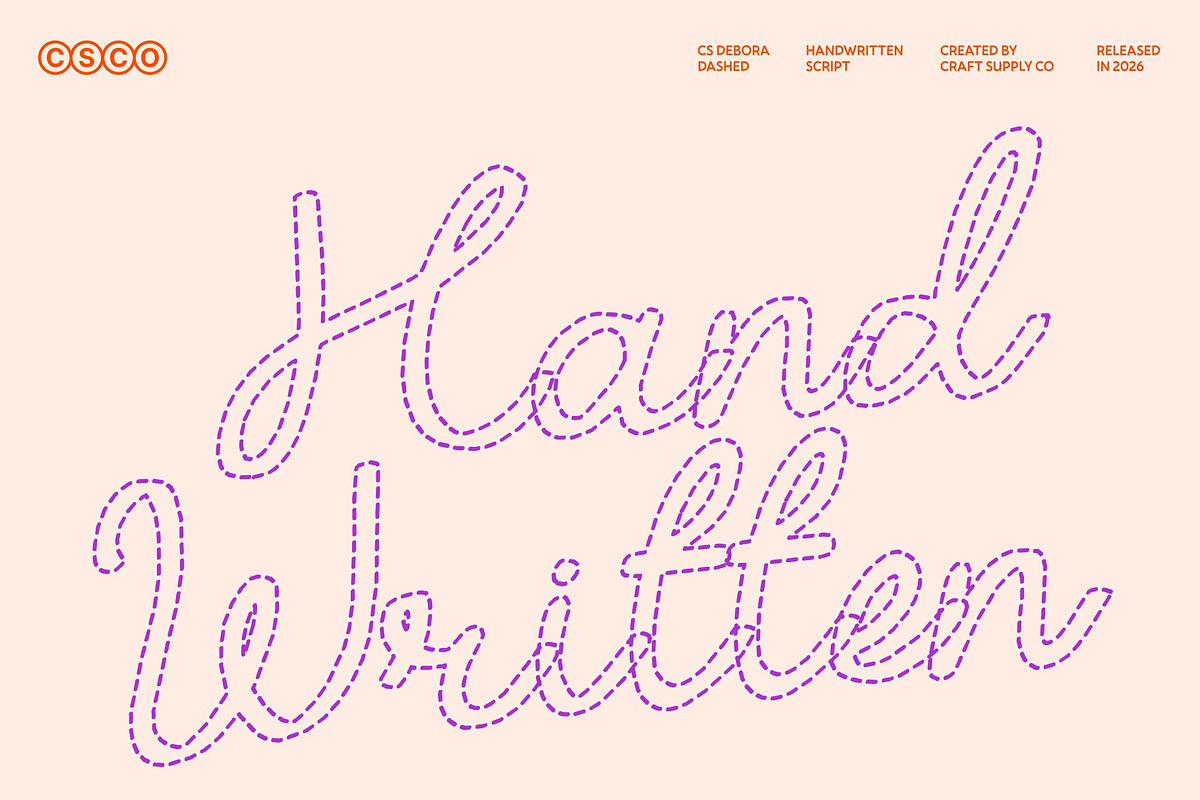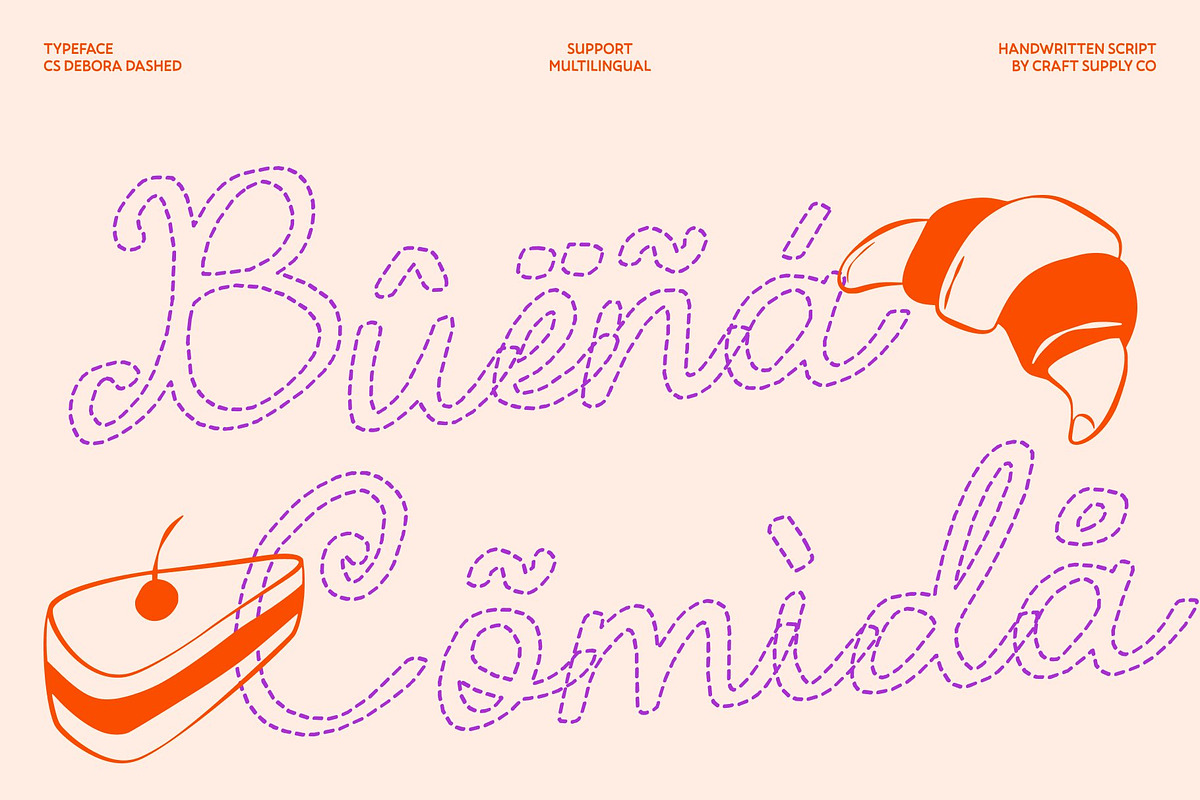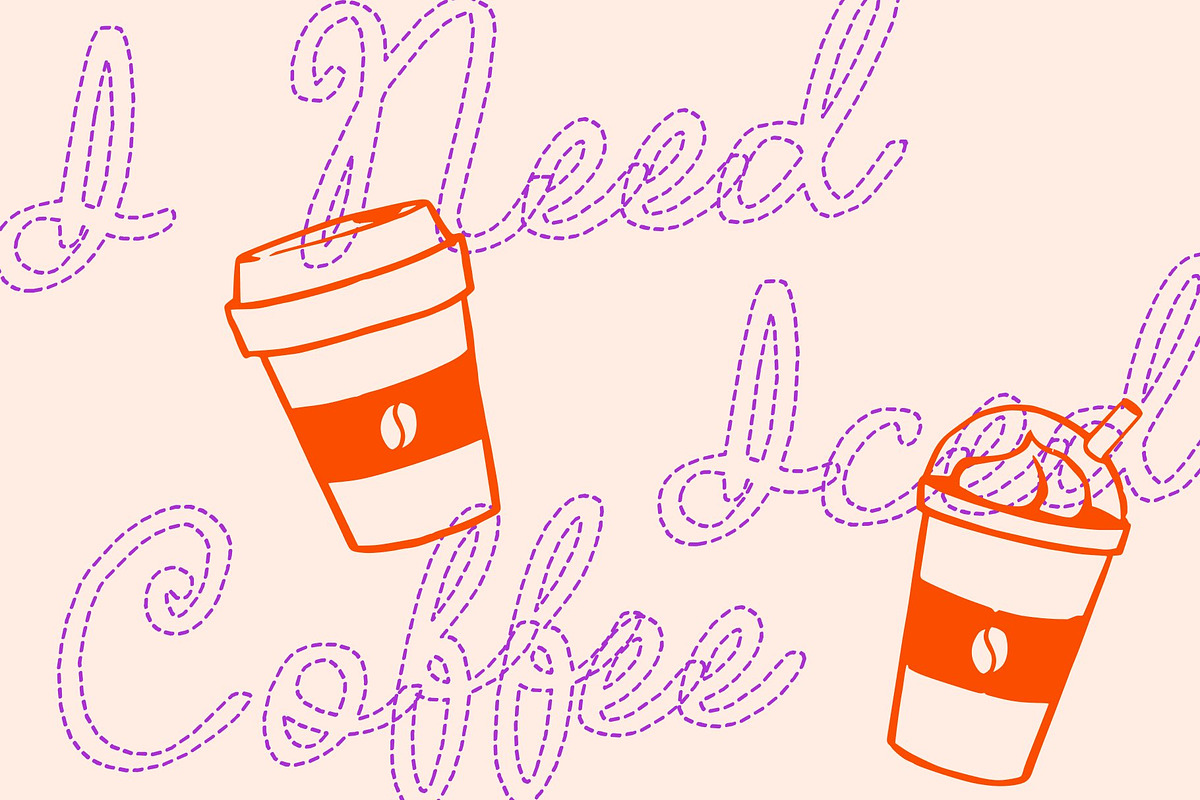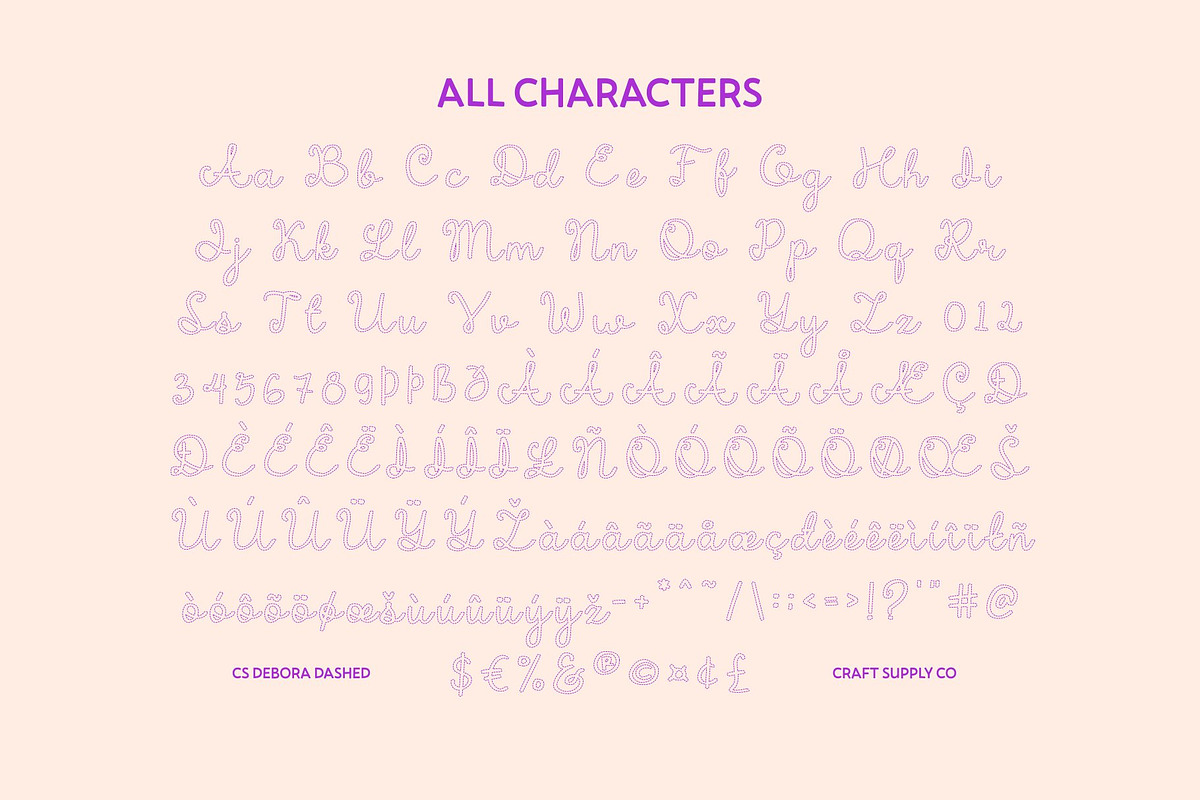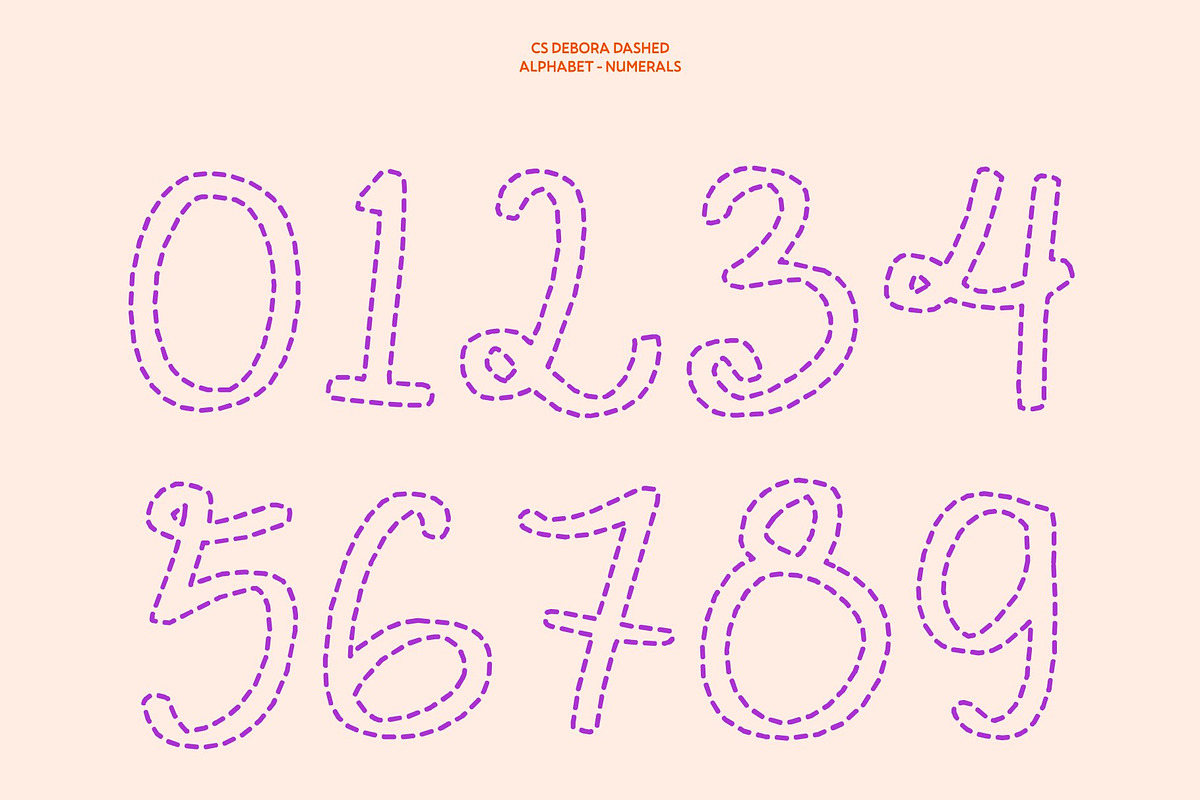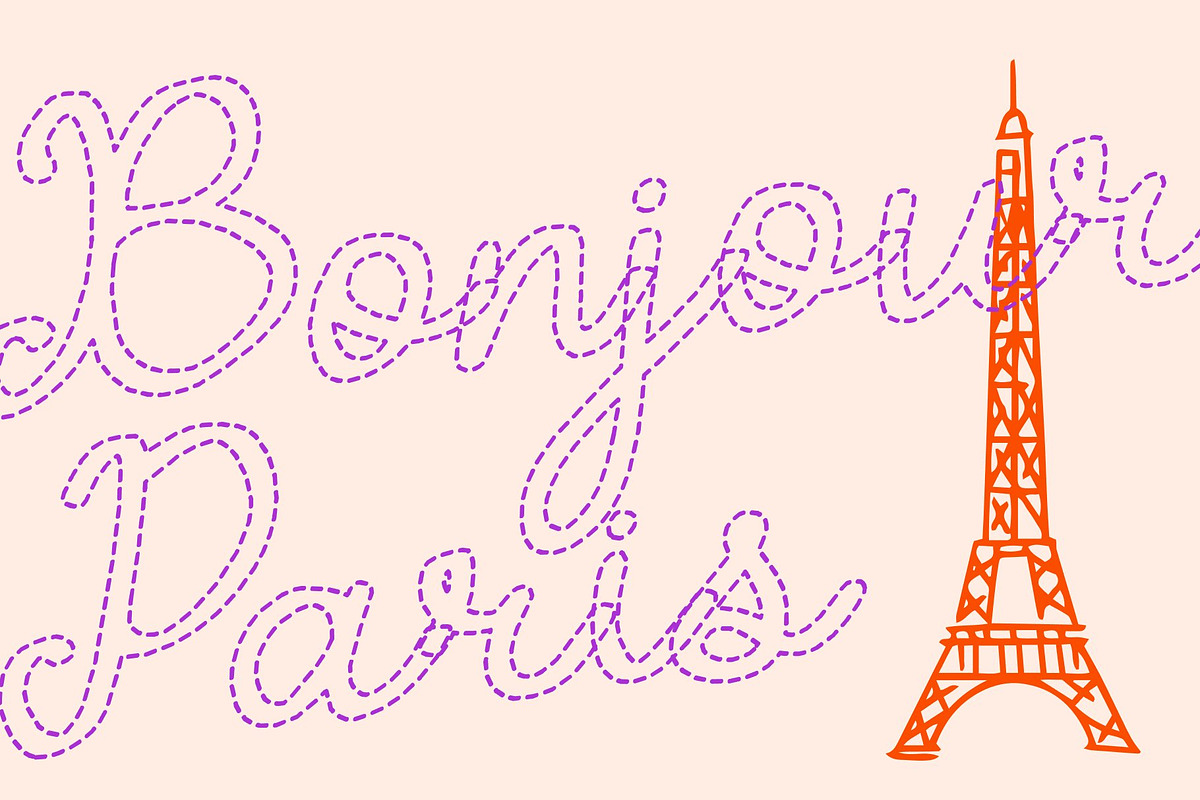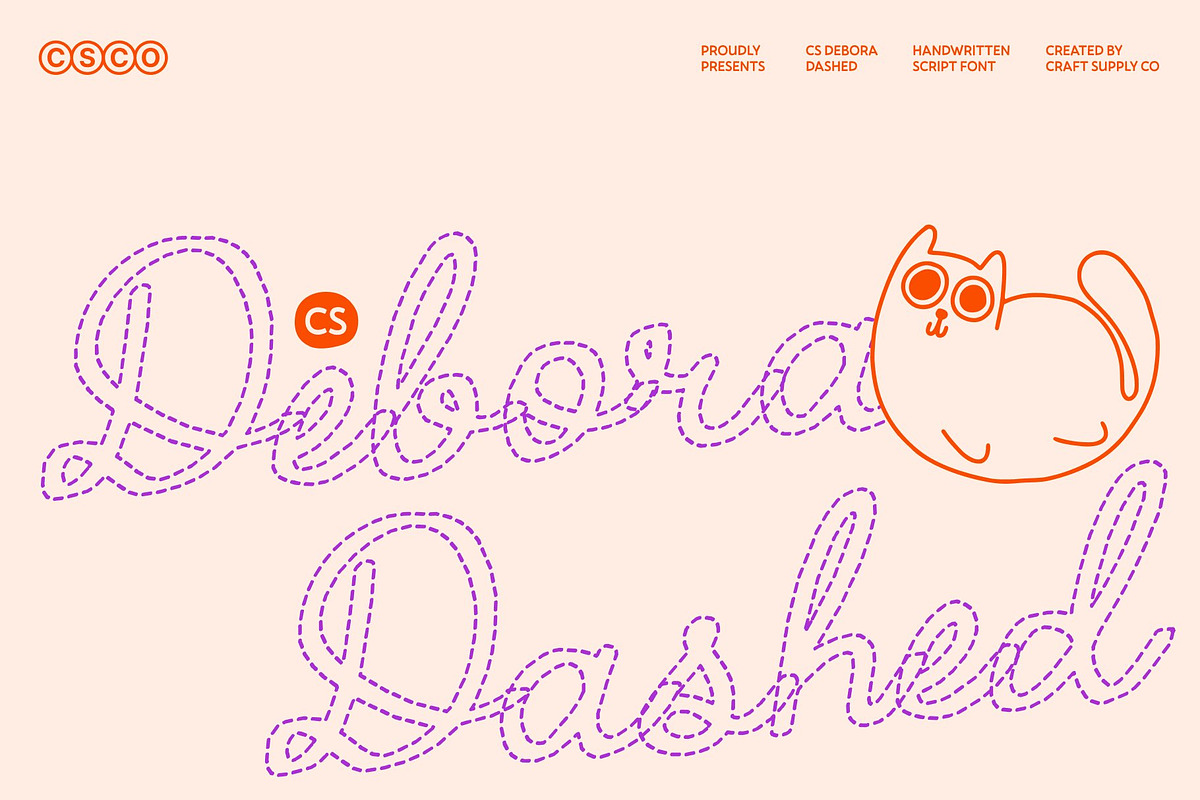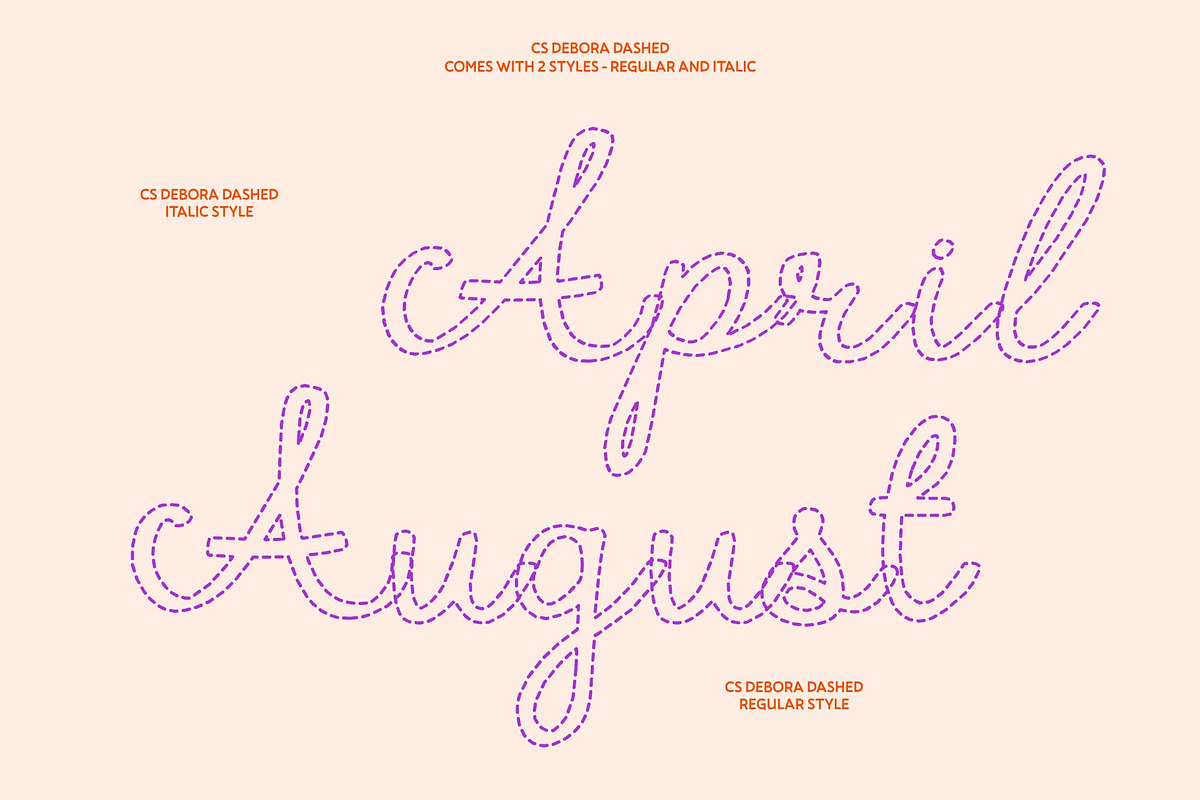
CS Debora Dashed
CS Debora Dashed – Handwritten Script Font: Romantic Script with Flowing Natural Beauty
Romantic and Stylish Handwriting This is a handwritten script font created to convey elegance, romance, and refinement. Its flowing forms reflect the grace of natural handwriting, offering a timeless aesthetic that feels both personal and sophisticated. Designed for projects that seek luxury with warmth, this font brings expressive beauty to every composition.
Dashed Strokes with Graceful Natural Flow The defining feature of this font is its delicate dashed construction. Rather than solid, continuous lines, each letter is formed from soft, broken segments that create a light and airy visual texture. This segmented stroke style enhances the sense of natural pen movement, as if the writing gently lifts and glides across the page. The result is a romantic script that feels artistic, relaxed, and visually captivating while maintaining clarity and elegance.
Italian-Inspired Elegance with a Modern Twist Inspired by the sophistication of Italian aesthetics, balances classic romance with contemporary styling. The flowing curves remain graceful and refined, while the dashed detailing adds a subtle creative edge. This blend of tradition and modernity makes the font versatile for both formal and fresh design applications.
Perfect for Luxury and Creative Branding Ideal for branding, packaging, editorial design, wedding invitations, fashion labels, and digital content, transforms typography into an expressive statement. Its romantic charm, combined with its distinctive dashed strokes, gives every word a polished yet imaginative presence perfect for designers who want to infuse their work with elegance, creativity, and timeless beauty.
CS Debora Dashed Regular
CS Debora Dashed Italic